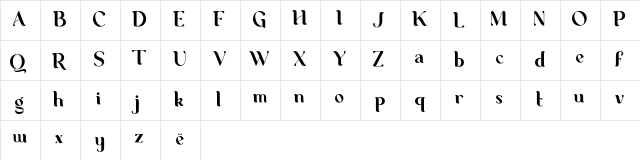
George Regular
| Foundry | Jamaludin Ahmad Sahestya Dharma |
| Designer | dharmas Std |
Design Context for George Typeface
George offers clean, dependable letterforms without strong stylistic allegiance, making it a practical choice for designers who need flexibility.